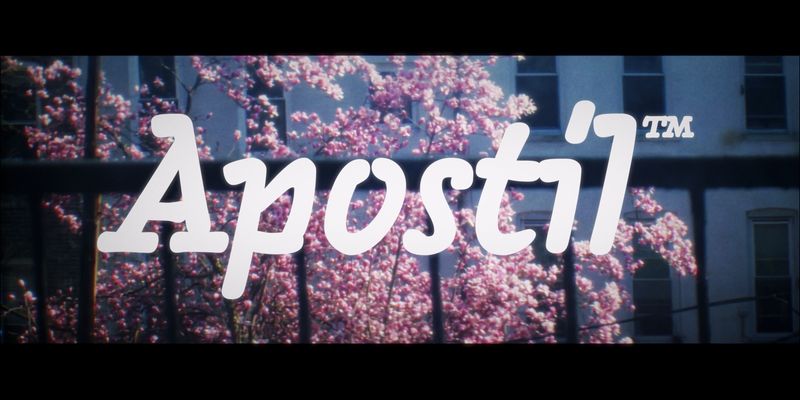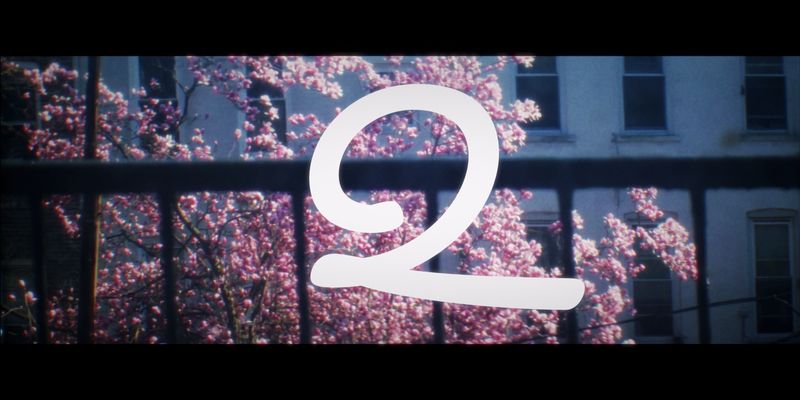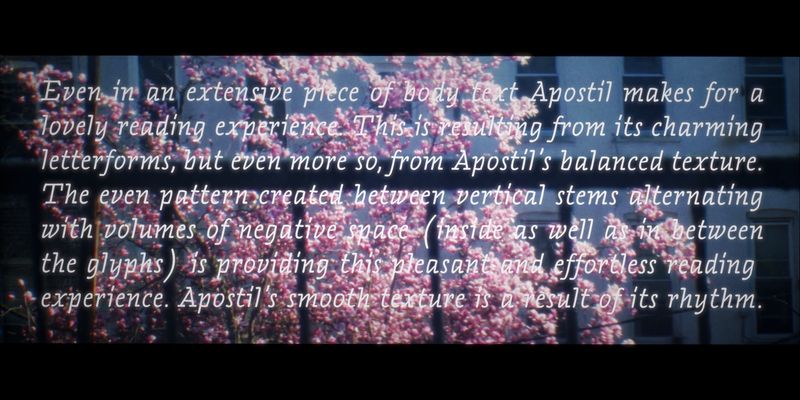
A simple hand lettering font in three weights
With a unique personal background in Dutch as well as in Swiss design, Famira Fonts naturally focuses on the sweet spot between the quiet beauty of legibility and a clear, recognizable style that serves designers in branding as well as in corporate identity work.